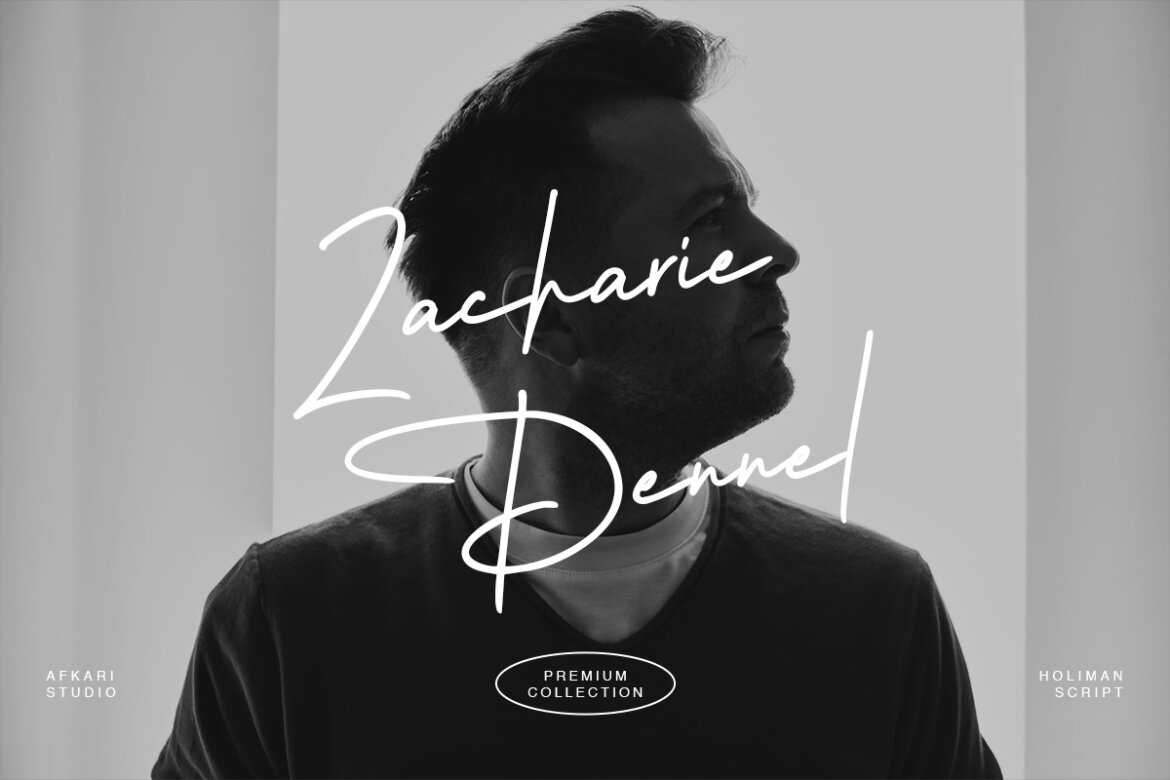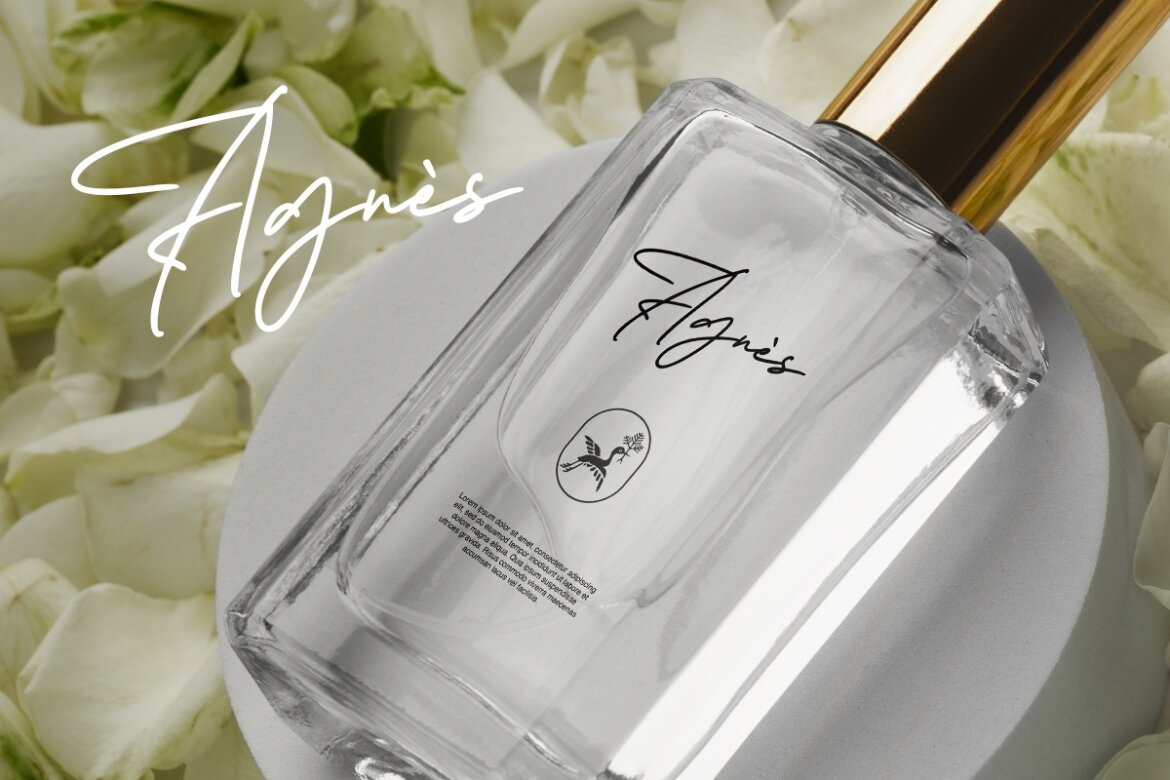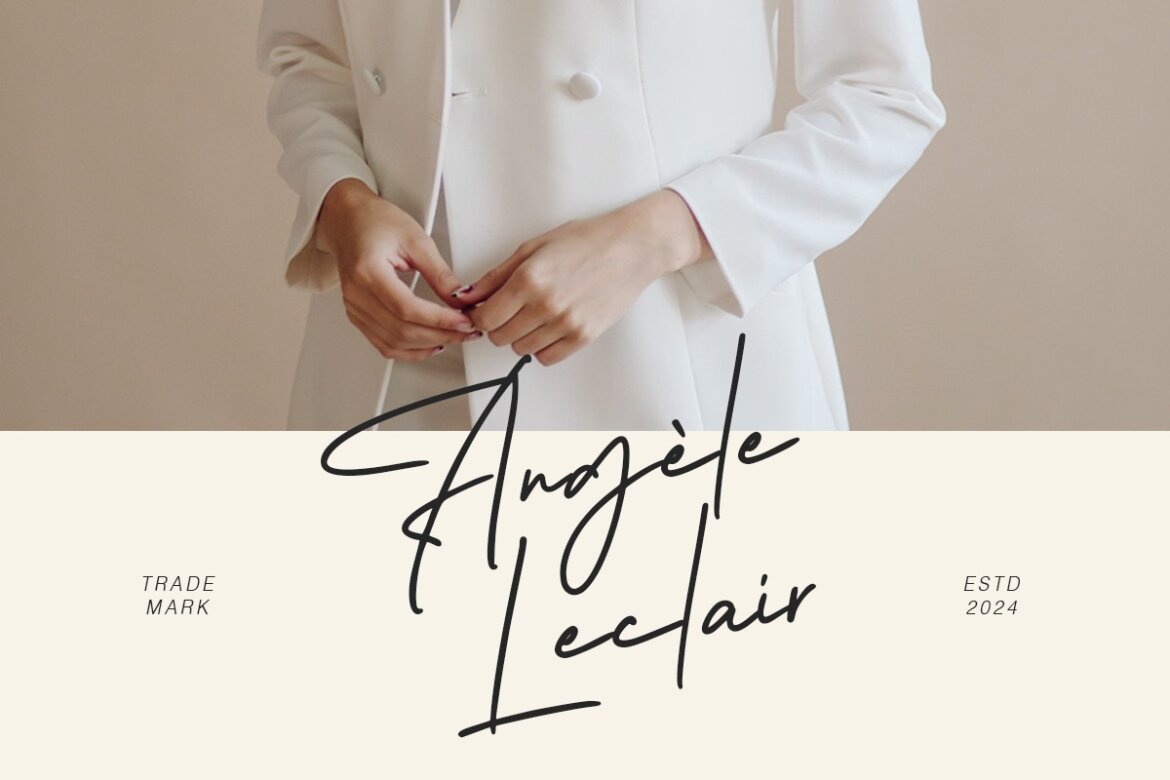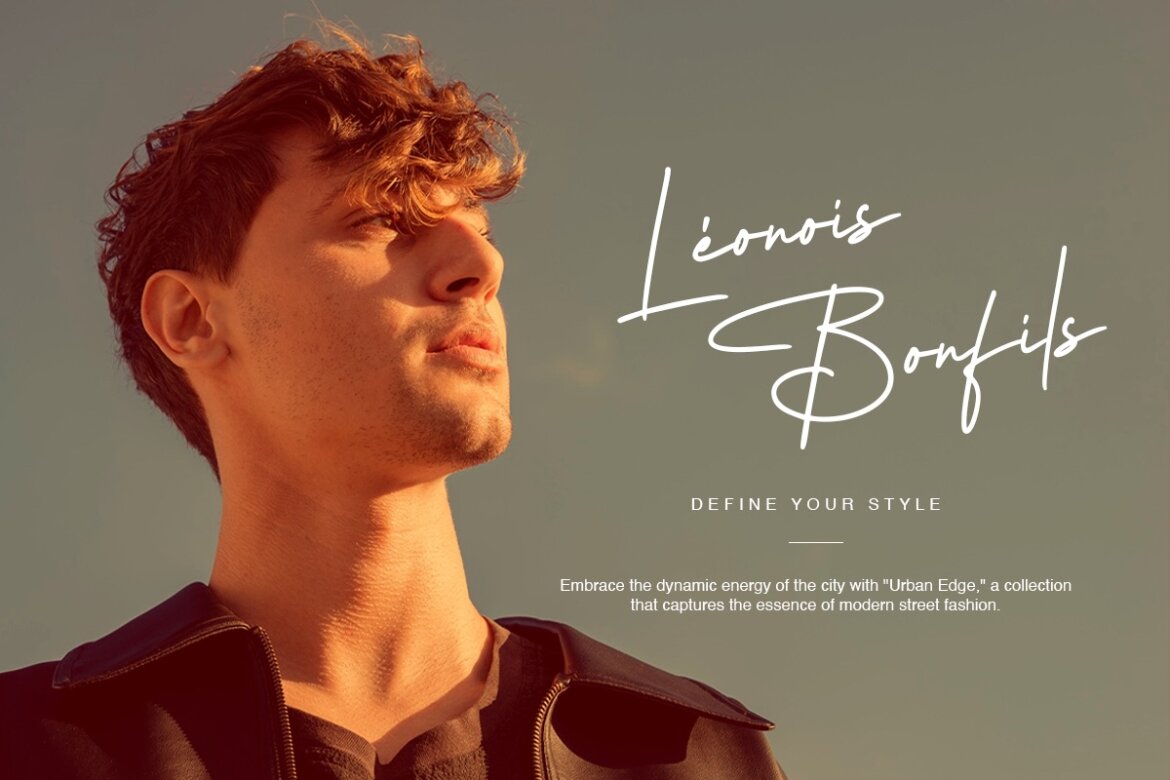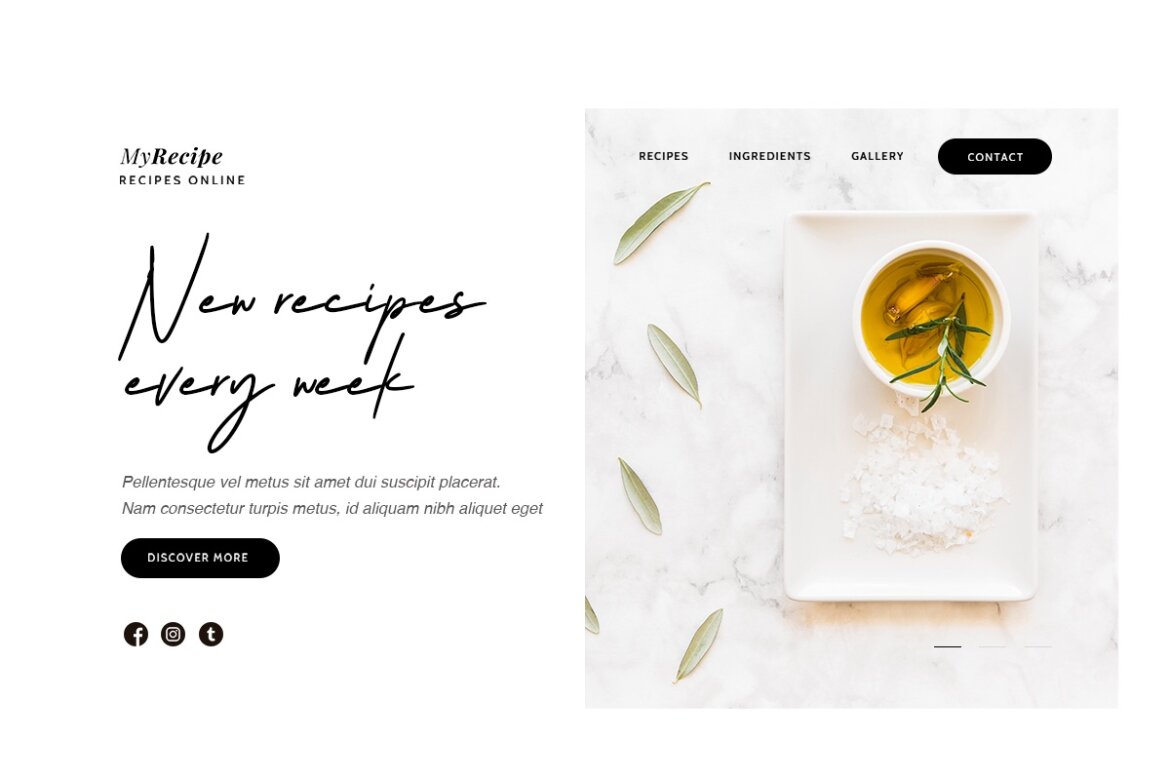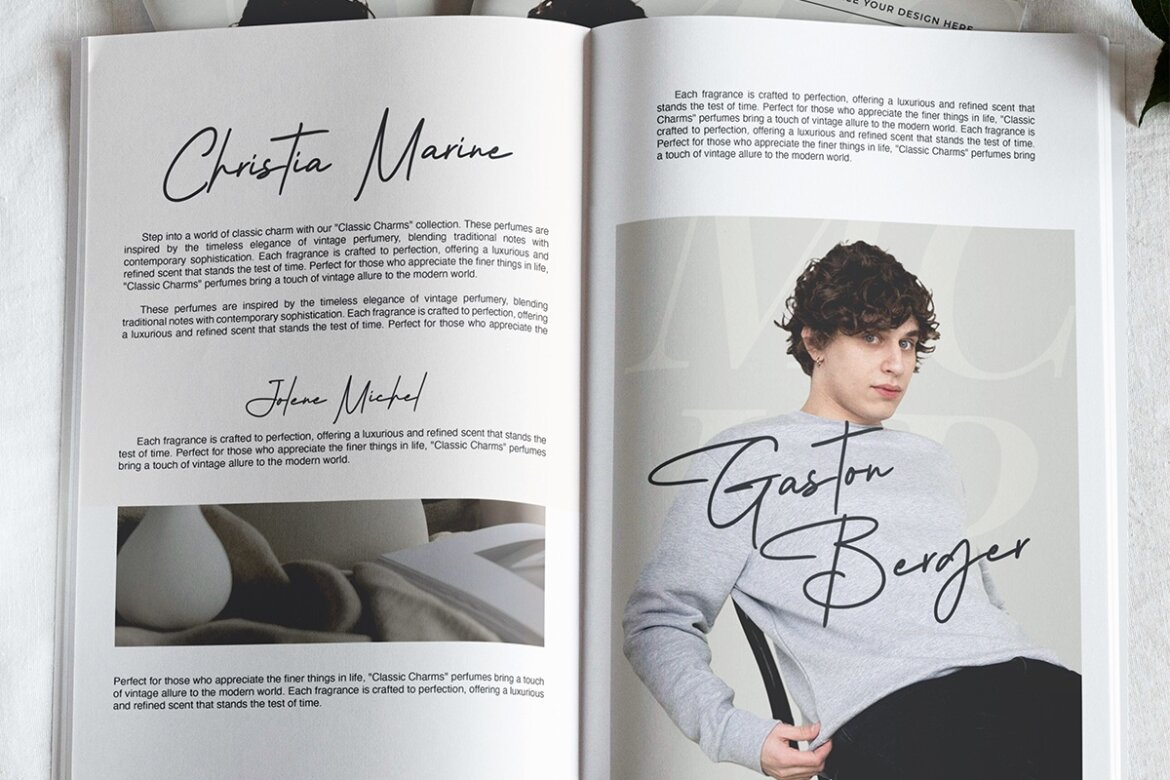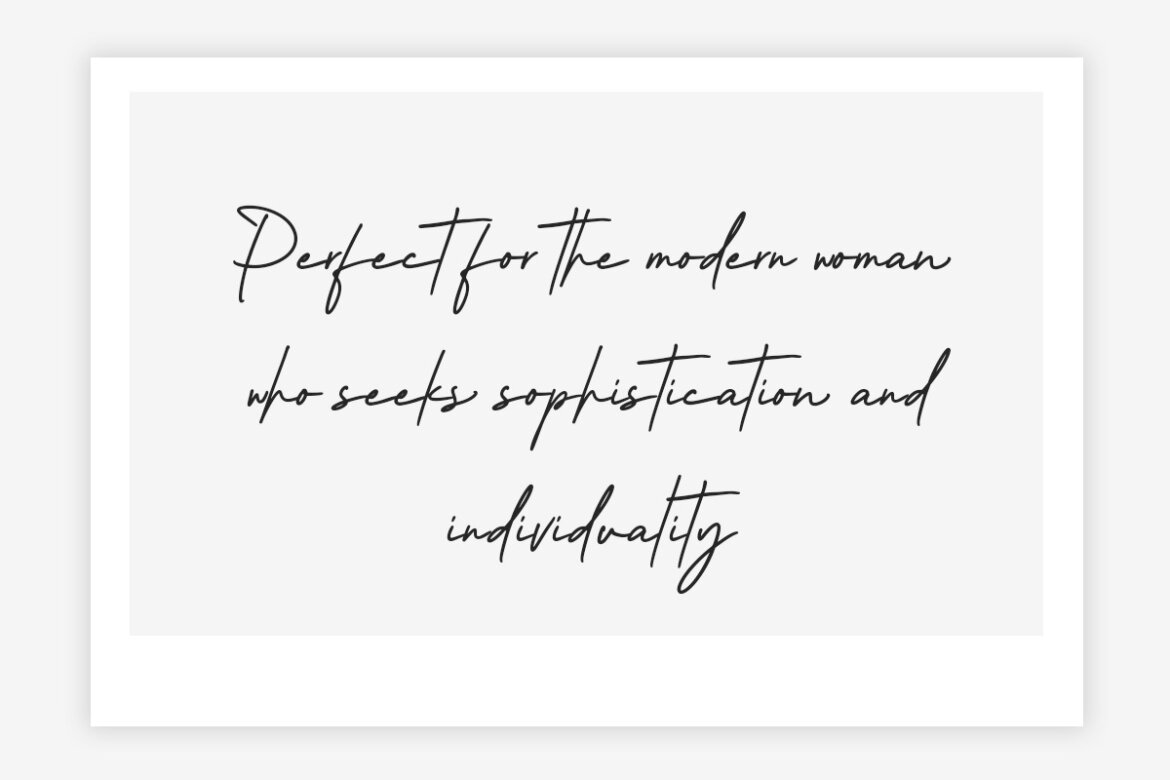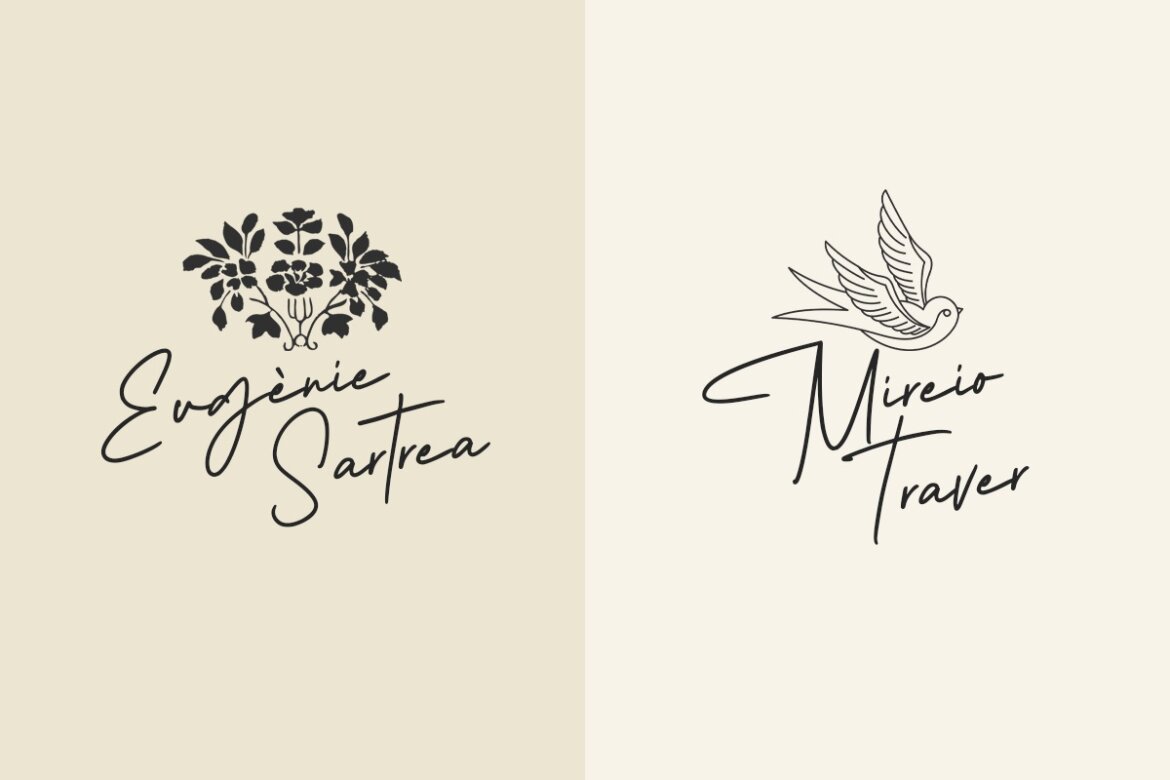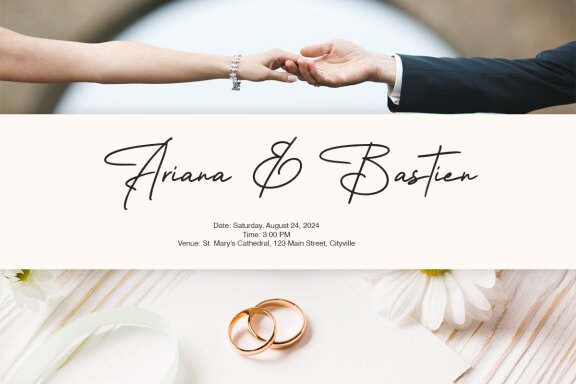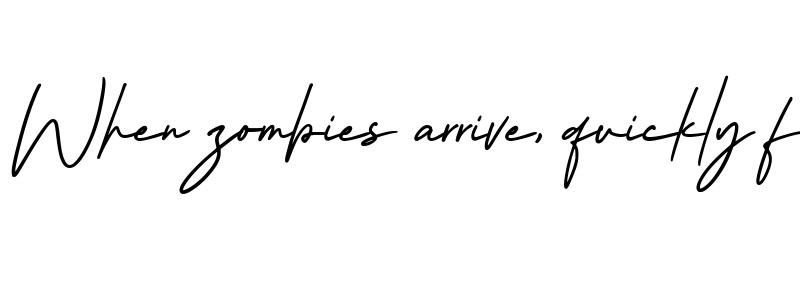
Mailman - Free Handwritten Script Font
Mailman - Handwritten Script Font is an elegant Handwritten font designed to infuse modernity and charm into your projects, exuding a delightful and welcoming ambiance. Discover the font’s versatility and immerse yourself in its enchanting appeal.
• mültîlíñgúãl sùppört for; ä ö ü ä ö ü ß ¿ ¡ etc.